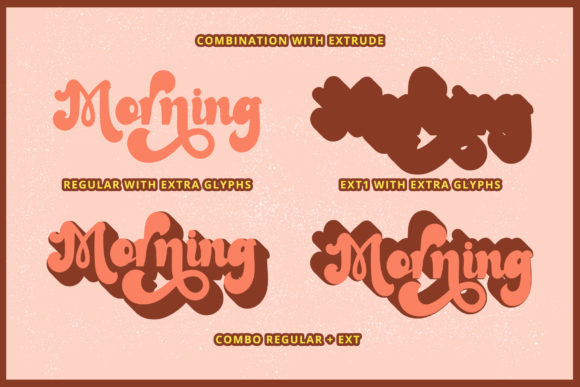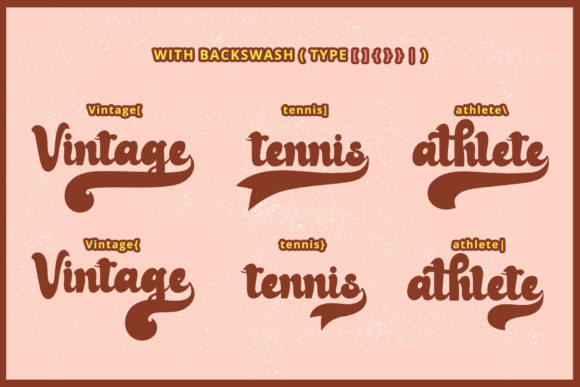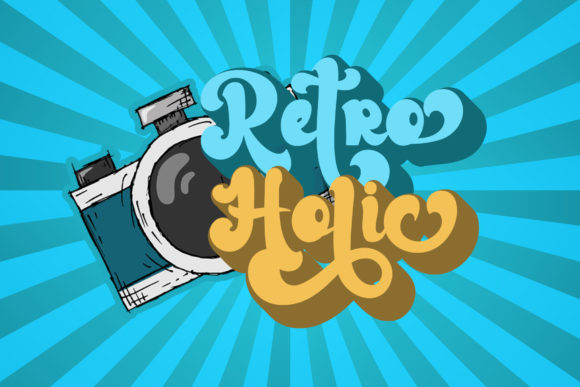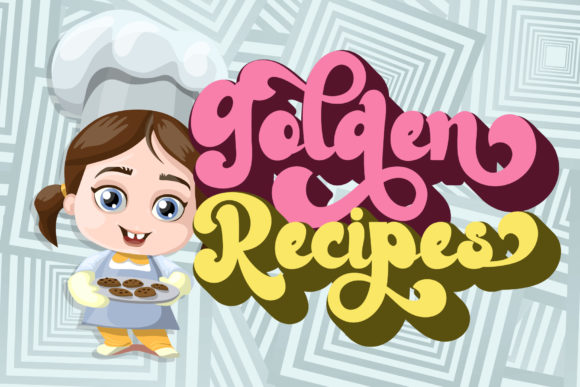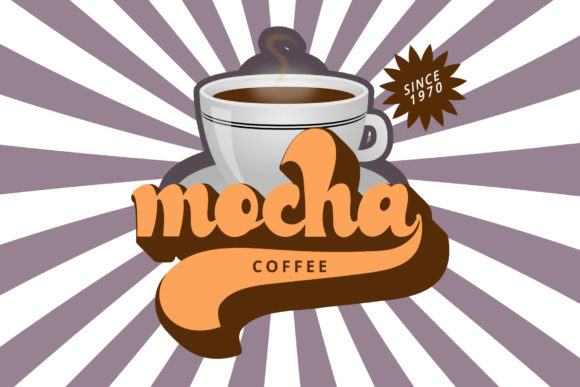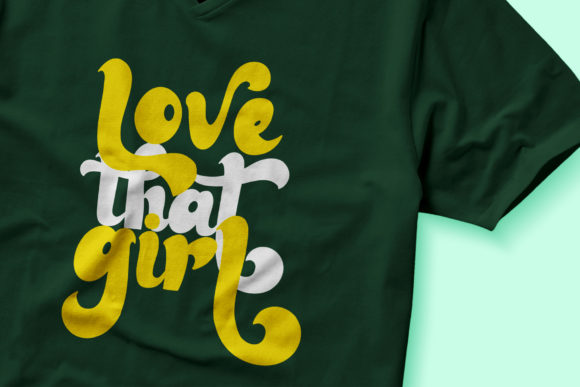
Introduction to Keystore Mind Font
Keystore Mind is bold script font with a retro style.
This font reads as strong, confident, and dynamic and can add tons of nostalgic character to your designs Keystore Mind is PUA encoded which means you can access all of the amazing glyphs and ligatures with ease.
Key Features of Keystore Mind Font